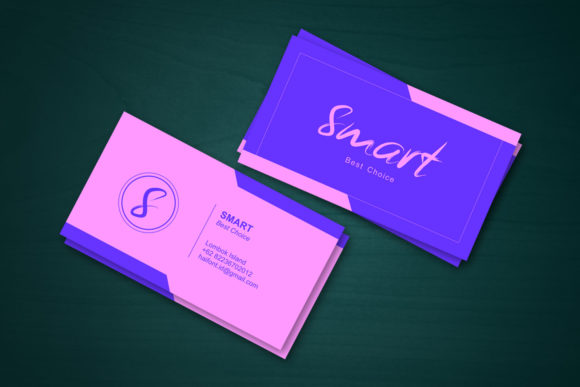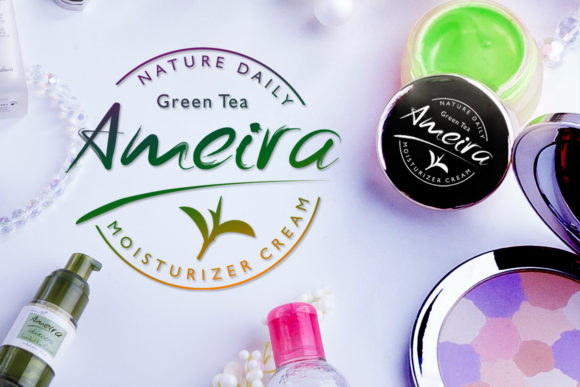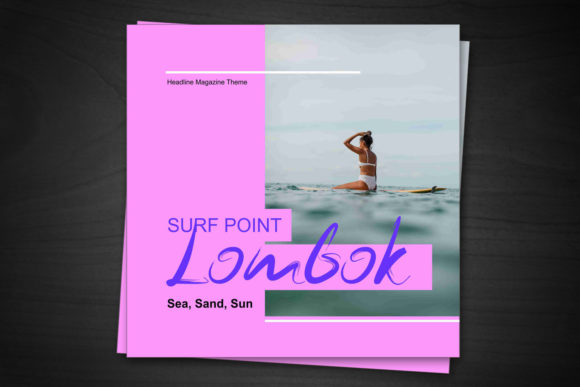
Introduction to Sasaku Font
As designers, we’ve all been there – staring at a blank canvas, searching for the perfect font to bring our creative project to life. The hunt for the ideal design resource can be a daunting task, especially when it comes to finding a font that exudes elegance and sophistication. That’s where Sasaku Font comes in – a lovely and brushed script font that’s sure to make your design stand out.
Whether you’re working on a product packaging design, creating a magazine cover, or simply need a font to express your thoughts above a transparent background, Sasaku Font is the perfect choice. Its high-quality design makes it an invaluable resource for designers, and the best part? It’s available for free download, making it accessible to designers of all levels.
Key Features of Sasaku Font
- High-quality, unique design ideal for creative projects
- Comes with a transparent background, allowing for flexible design options
- Designed to be versatile, suitable for use in various design contexts, from branding to editorial content
Honest Review: Sasaku Font
I recently stumbled upon the Sasaku Font and was excited to try it out for my latest creative project. As a designer, I’m always on the lookout for high-quality design resources to elevate my work.
Here’s what I like about the Sasaku Font: ✨ It has a beautiful, elegant design that works well for titles, headings, and even body text. ✨ The font is available for free download, which is a huge plus for designers who are working on a budget. ✨ The transparent background makes it easy to overlay on top of images or other design elements.
Here are some limitations I’ve encountered: ⚠️ The font may not be suitable for all types of projects, particularly those that require a bold or dramatic look. ⚠️ The font is not as versatile as some other fonts on the market, so you may need to use it in combination with other fonts to achieve the desired effect.
Overall, I’m impressed with the Sasaku Font and would definitely recommend it to designers who are looking for a high-quality, elegant font for their creative projects. With a little creativity and experimentation, I think this font has a lot of potential.
- High-quality, elegant design
- Suitable for titles, headings, and body text
Tips for Getting the Most Out of Sasaku Font
For optimal results, use the Sasaku Font in high-quality designs and pair it with other high-quality design elements. Experiment with different font sizes, colors, and styles to create unique and eye-catching designs.
Common Use Cases for Sasaku Font
The Sasaku Font is ideal for a variety of creative projects, including logos, business cards, brochures, and social media graphics. Its versatility and high-quality design make it a valuable resource for designers and non-designers alike.
Is the Sasaku Font available with a transparent background?
Yes, the Sasaku Font is available with a transparent background, making it ideal for use in design applications where a transparent background is required. The transparent background allows designers to easily overlay the font on top of images or other design elements.